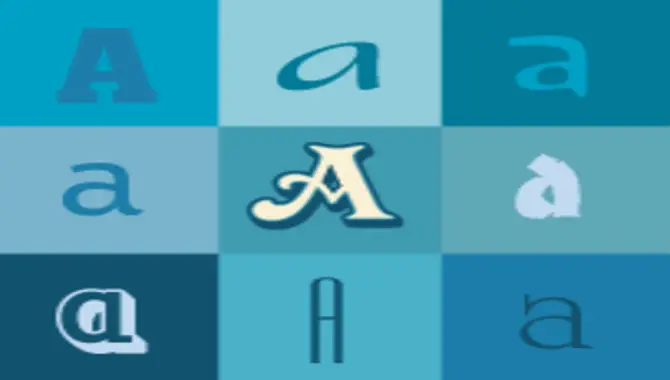
If you’re a graphic designer, web developer, or just someone who likes to play around with fonts, you know that the “a” is one of the most important letters in the alphabet. And, just like every other letter in the alphabet, the “a” has a different design in every font.
The “a” is such an important letter because it’s the first letter in the alphabet and one of the most commonly used letters in the English language. That’s why it’s important to choose a font with a well-designed “a” that is easy to read.
There are a few things to remember when looking at the “a” in a font. The first is the width of the letter. The “a” should be wide enough that it’s easy to read but not so wide that it takes up too much space. The second is the height of the letter. The “a” should be tall enough that it’s easy to read but not so tall that it looks out of place.
The third thing to keep in mind is the design of the letter. The “a” should have a clean design that is easy to read. The fourth thing to keep in mind is the spacing of the letter. The “a” should have enough space around it so that it’s easy to read but not so much space that it looks out of place. The fifth
What Does The Letter “a” Look Like In Different Fonts?
When choosing a font for your next project, it’s important to remember how different letters will look in that font. For example, the letter “a” can have a completely different appearance depending on the font you choose.
Here’s a quick rundown of how the letter “a” looks in some of the most popular fonts:
- In Arial, the letter “a” is curved at the top and bottom, with a small spur at the left side.
- In Times New Roman, the letter “a” has a small serif at the top and bottom.
- In Comic Sans, the letter “a” has a large, exaggerated loop at the top.
- In Courier, “a” is the same as “i.”
As you can see, the letter “a” can take on various shapes, depending on your chosen font. So when you’re picking a font, look at how all the letters look, not just the “a.”
How Does The Letter “a” Affect The Overall Look Of A Font?
The letter is one of the most important letters in the English alphabet, and its shape can greatly impact the overall look of a font. For example, the letter in the Arial font differs greatly from the letter in the Times New Roman font. The Arial is more round, while the Times New Roman is more pointy. This difference can give each font a very different feel.
Why Do Some Fonts Have Different Versions Of The Letter A In Font?
If you’ve ever wondered why some fonts have different versions of the letter a, you’re not alone. While it may seem like a small detail, the different versions of the letter can make a big difference in the overall font look. Here’s a closer look at why some fonts have different versions of the letter and how it can affect the overall look of a font.
The first thing to understand is that there are two main fonts: serif and sans serif. Serif fonts are the ones with the little feet on the letters, while sans-serif fonts are the ones without the feet. The different versions of the letter are designed to work well with either type of font.
Generally, the sans-serif version of the letter will be more modern, while the serif version will have a more traditional look. This is because the sans-serif version is typically simpler and cleaner, while the serif version has more of a decorative element.
So, why do some fonts have different versions of the letter a? It comes down to personal preference and the overall look you’re going for with your font. If you want a more modern look, use a sans-serif font. If you want a more traditional look, go with a serif font. And if you’re unsure, try out a few different fonts until you find the one you like best.
How Can I Create My Font With The Letter “a” In It?
If you’re interested in creating your font, there are a few things you’ll need to do. First, you must find a vector editing program like Adobe Illustrator. Once your program is open, you’ll need to create a new document. The size of your document will depend on the size you want your font to be.
Next, you’ll need to create the letter in your vector program. Once your letter is created, you’ll need to export it as a .ttf file. This file type will allow you to use your font in any program on your computer.
Lastly, you’ll need to install your new font on your computer. Once your font is installed, you can use it in any program that supports .ttf files. Creating your font can be a fun and rewarding experience. You can create a unique font with a little time and effort.
What Common Problems Do People Have With The Letter “a” In Fonts?
One of the most common problems with the letter in fonts is that they can be difficult to read. This is because the letter is often used as the first letter in a word, and the first letter of a word is often the most difficult to read.
Another common problem with the letter in fonts is that it can be difficult to distinguish between the upper and lowercase versions of the letter. This is because the upper and lowercase versions of the letter are often very similar in appearance. Hopefully, you are clear now. If you still have any questions, feel free to comment below.